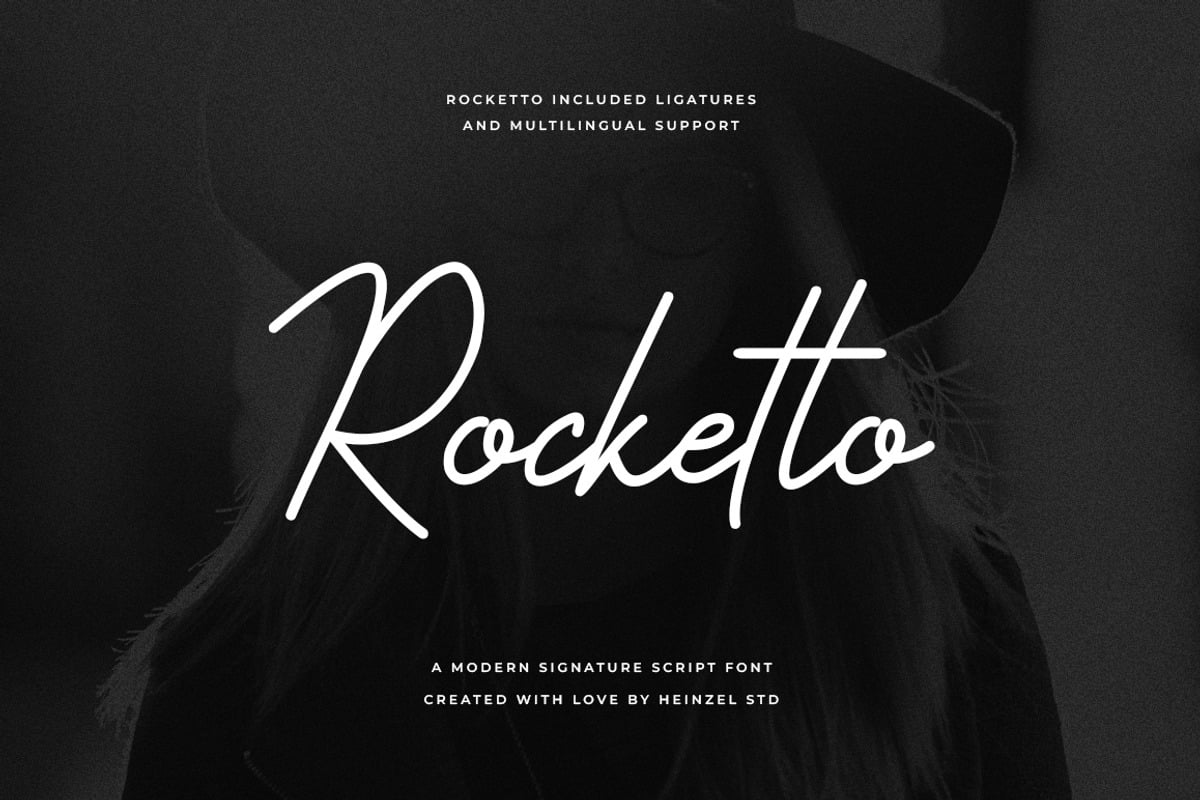
Rocketto Signature Font
Rocketto is the signature script font that gives every design an instant touch of elegance and confidence.
Rocketto is a modern handwritten script typeface built for creatives who want authentic personality without sacrificing readability. Its smooth monoline strokes and natural flow make it equally at home on a luxury brand logo, a wedding invitation, product packaging, or a polished social media post.
Available in two versatile weights, Rocketto adapts effortlessly — go bold and commanding or light and refined depending on your project's mood. The balanced letterforms maintain that genuine handwritten feel while keeping text clean and legible at any size.
- Two weights for flexible design options
- Ligatures and alternates for natural, flowing text
- Full uppercase and lowercase character sets
- Numbers and punctuation included
- Multilingual support for global design projects